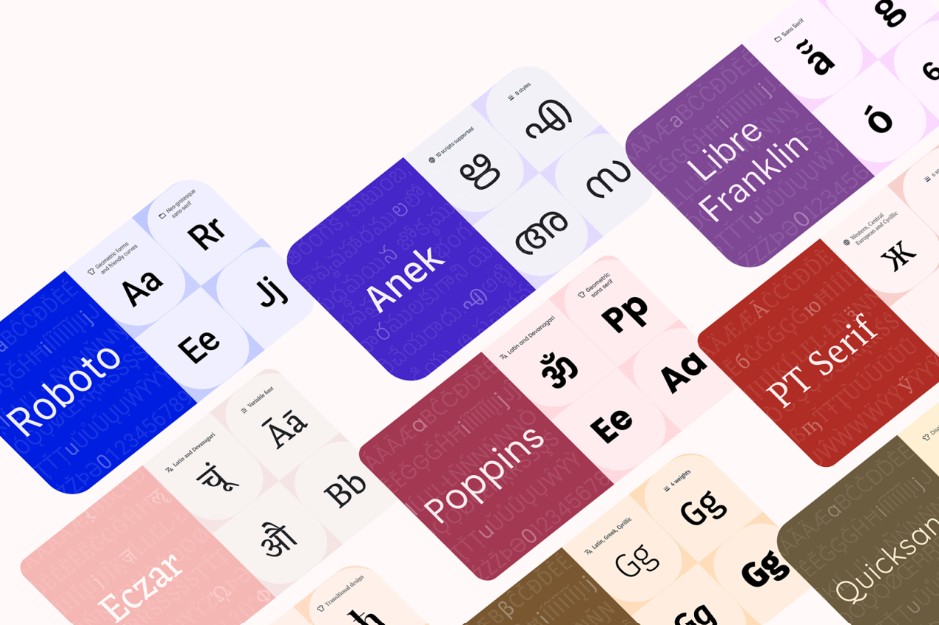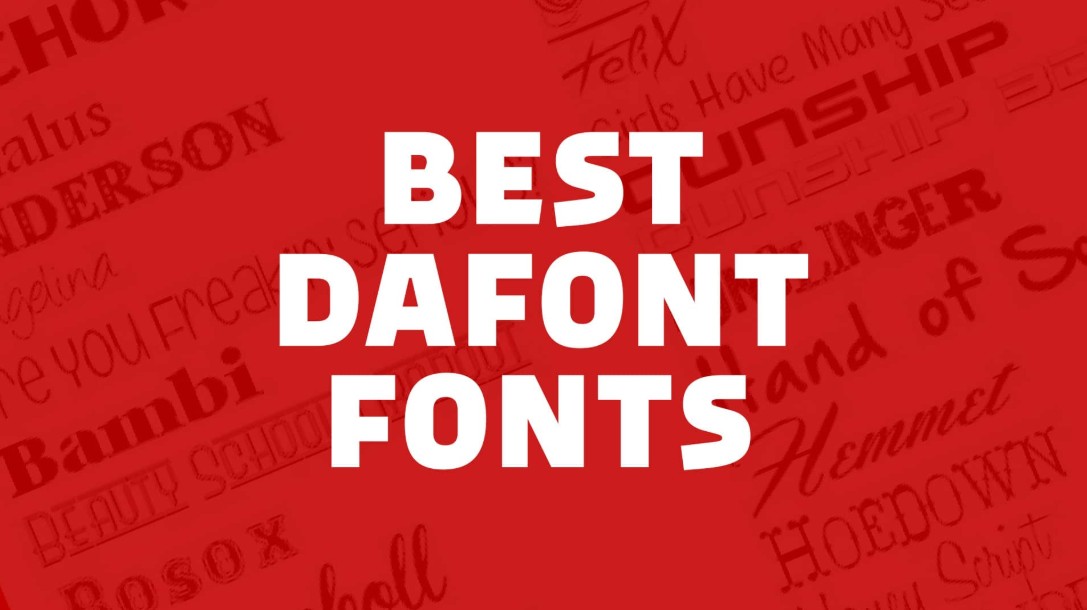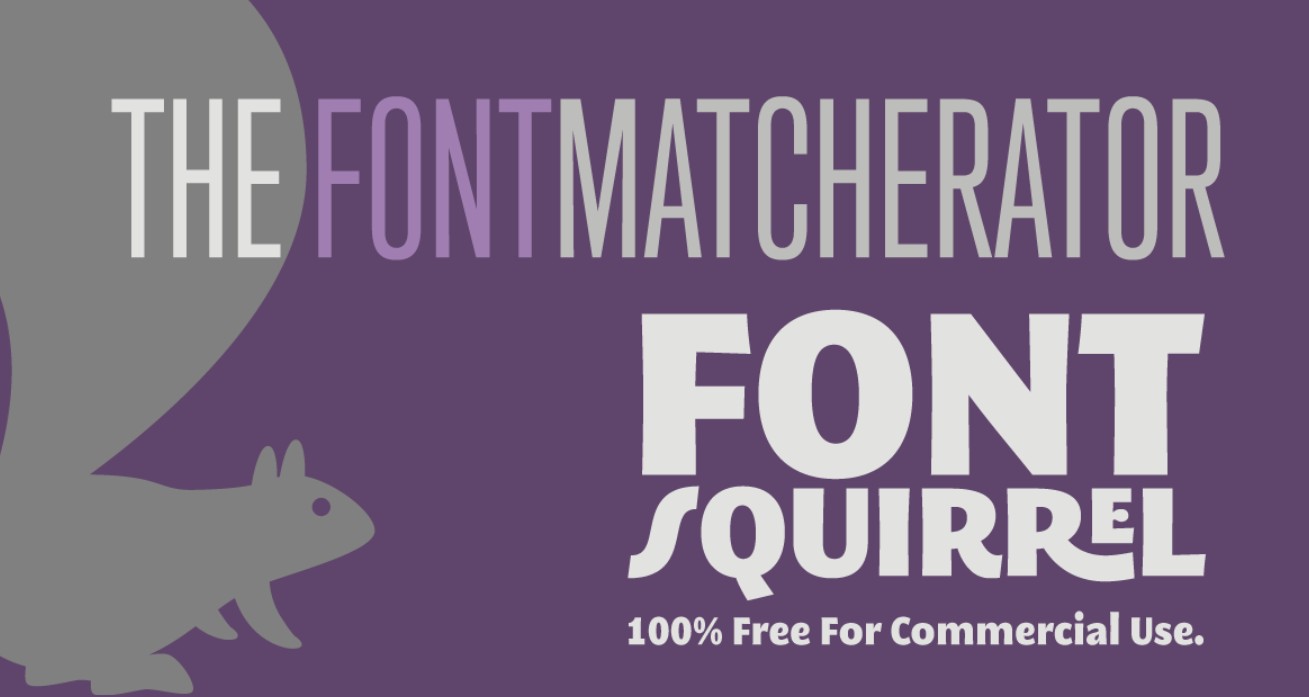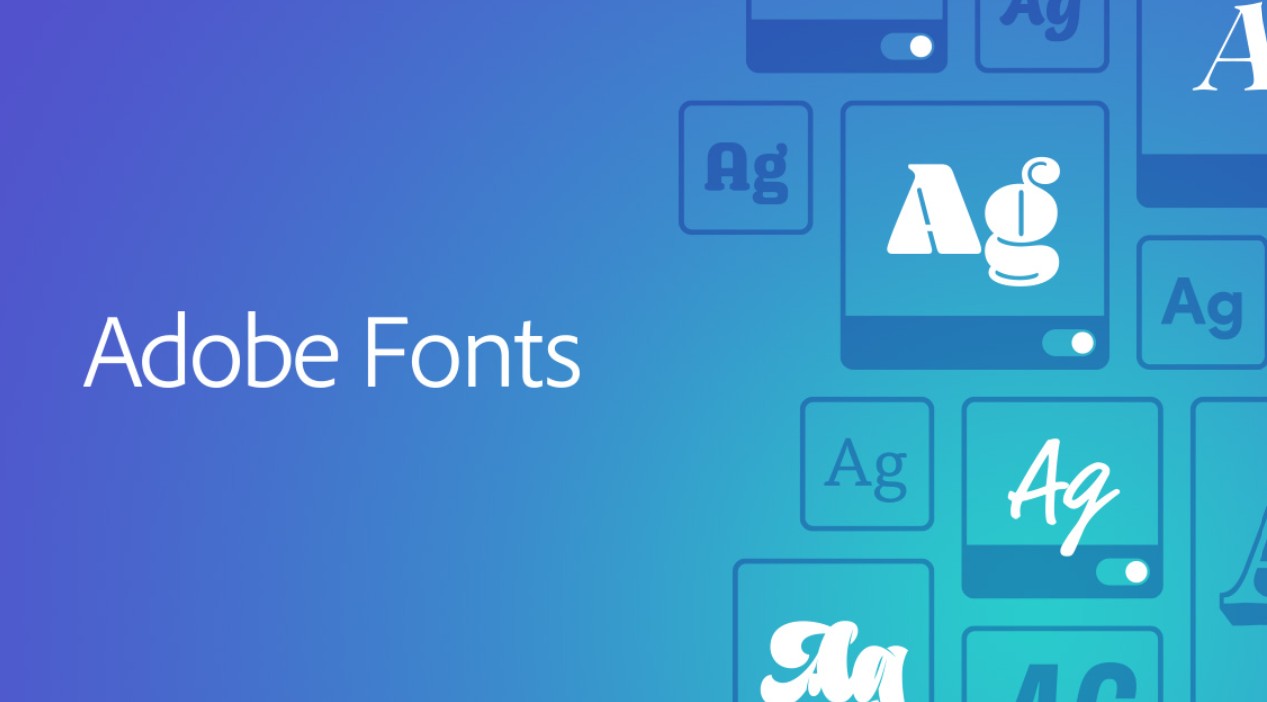
Free and High-Quality Font Download Sources for Designers
Fonts are an important element that helps enhance quality and aesthetics in design. However, finding free font sources that are both attractive and safe is not always easy.
1. The Role of Fonts in Design
Fonts are not merely tools for displaying content but also core elements that determine how viewers perceive a design. In many cases, typography is the first point of contact between a product and its audience, so choosing the right font helps convey messages more quickly, clearly, and effectively. A good font can create a strong focal point, guide the viewer’s attention, and make content more memorable.
When working with Adobe Photoshop, fonts also directly affect layout and visual balance. If a font is inappropriate in terms of proportion, weight, or spacing, the design may become cluttered, unprofessional, and difficult to read. On the other hand, choosing the right font can elevate the entire product without requiring major changes to other elements such as colors or images.
In addition, fonts play an important role in building brand identity. Each typeface has its own “personality,” ranging from elegant and modern to youthful or unconventional. Consistent font usage across publications helps brands become more recognizable and create a distinct impression in the minds of users. Therefore, fonts are not just small details but strategic components of professional design.
2. Tips for Using Beautiful Fonts in Photoshop
2.1 Use the Right Font Type for the Design Purpose
Each font type carries its own style and emotion, so selecting the right font for a specific design purpose is one of the most important factors. Serif fonts often create a sense of tradition, reliability, and sophistication, making them suitable for formal publications such as brochures, newspapers, or premium brands. Meanwhile, sans-serif fonts represent modernity, minimalism, and readability, making them ideal for digital design, websites, or social media content.
Script fonts are often used in personalized or artistic designs such as wedding invitations and creative posters, while display fonts serve as strong visual accents for headlines or slogans. When working in Adobe Photoshop, clearly defining the design objective from the beginning will help you choose the right font, ensuring consistency and improving communication effectiveness.
2.2 Combine Fonts Harmoniously
Font pairing is an important skill that helps designs become more dynamic and professional. However, using too many fonts or combining them incorrectly can make a layout look cluttered and unfocused. A common rule is to use only two to three fonts in a single design to maintain balance.
An effective approach is to use one primary font for headlines and one secondary font for body content, creating a clear visual hierarchy. In addition, it is best to combine fonts that contrast with each other while still complementing one another, such as a modern sans-serif paired with a soft script font, or a serif font combined with a display font to create visual depth. Harmony in font pairing makes a design look more professional and accessible.
2.3 Adjust Letter and Line Spacing
Tracking, kerning, and leading are important technical factors that are often overlooked. In reality, these are key elements that determine readability and the sophistication of a design.
In Adobe Photoshop, you can easily adjust these settings to suit specific layouts. Increasing or decreasing letter spacing can make content appear more open or more compact depending on the intended effect. Appropriate line spacing helps readers follow the content comfortably without eye strain. When refined correctly, these small details can make a significant difference in overall aesthetics.
2.4 Use Effects for Fonts
Effects are tools that help fonts become more eye-catching and attractive in a design. With Adobe Photoshop, you can apply various effects such as drop shadows, strokes, gradients, embossing, or textures to add depth and creativity to typography.
However, effects should be used with moderation. Overusing them can make a design appear cluttered and less professional. The key principle is to prioritize clarity and readability before decorative elements. When applied correctly, effects not only make fonts stand out but also contribute to creating a unique style for the overall design.
3. Free and High-Quality Font Download Sources
Choosing and downloading fonts from reliable sources not only ensures quality but also helps avoid security and copyright risks. Below are some trusted font resources you should consider when working with Photoshop.
Google Fonts is one of the largest free font libraries available today. This platform offers thousands of fonts in a wide range of styles, from classic to modern. The main advantages of Google Fonts are ease of use, excellent compatibility with various platforms, and completely free licensing for both personal and commercial purposes.